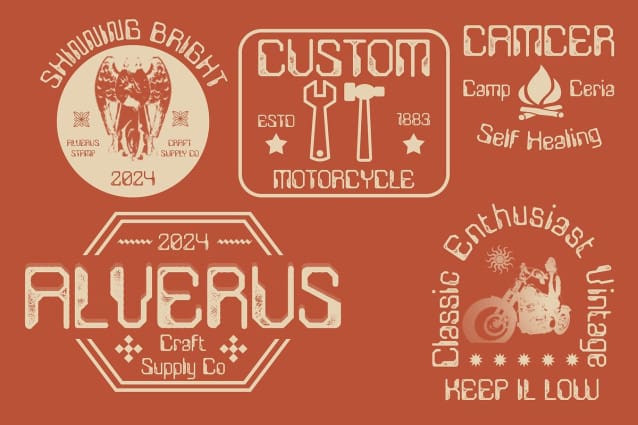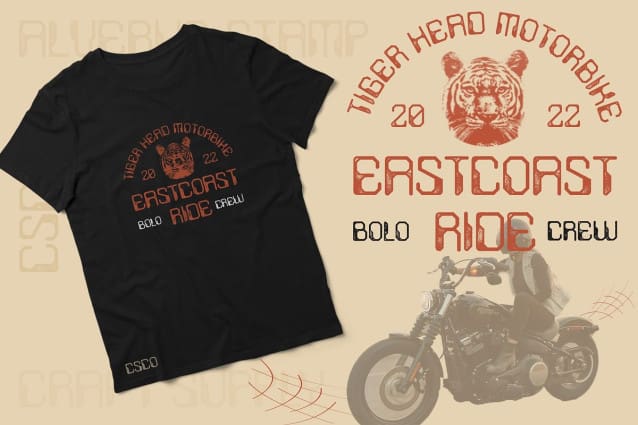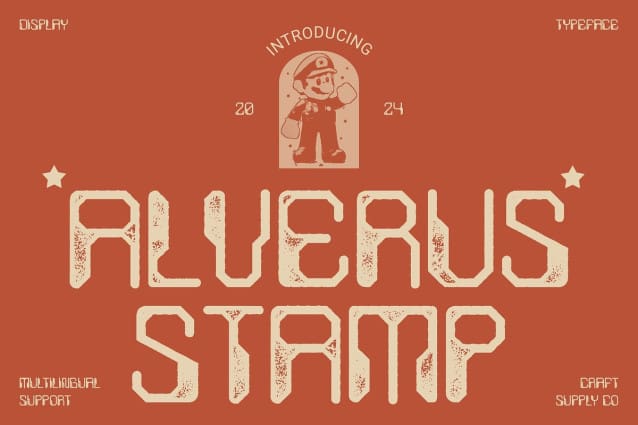
Alverus Stamp Font
Alverus Stamp Font: Futuristic Display Typography. Inspired by Technology Alverus Stamp draws inspiration from modern technology and electronic devices, shaping its design to reflect sleek, futuristic aesthetics display.
Distinctive Stamp Effect With its unique stamp effect, This font adds a touch of authenticity and intrigue to any display project, making it stand out in a sea of conventional fonts.
Perfect for Display Needs Tailored for display purposes, This font excels in various applications, including website headers, product packaging, and digital advertisements, thanks to its eye-catching design.
Versatile and Impactful This font offers versatility and impact, making it suitable for a wide range of design projects where a bold and modern aesthetic is desired.
Embracing the Future This font embodies the essence of futuristic design, seamlessly blending technology-inspired shapes with a distinctive stamp effect. Elevate your display projects with This font and make a bold statement in the digital landscape.